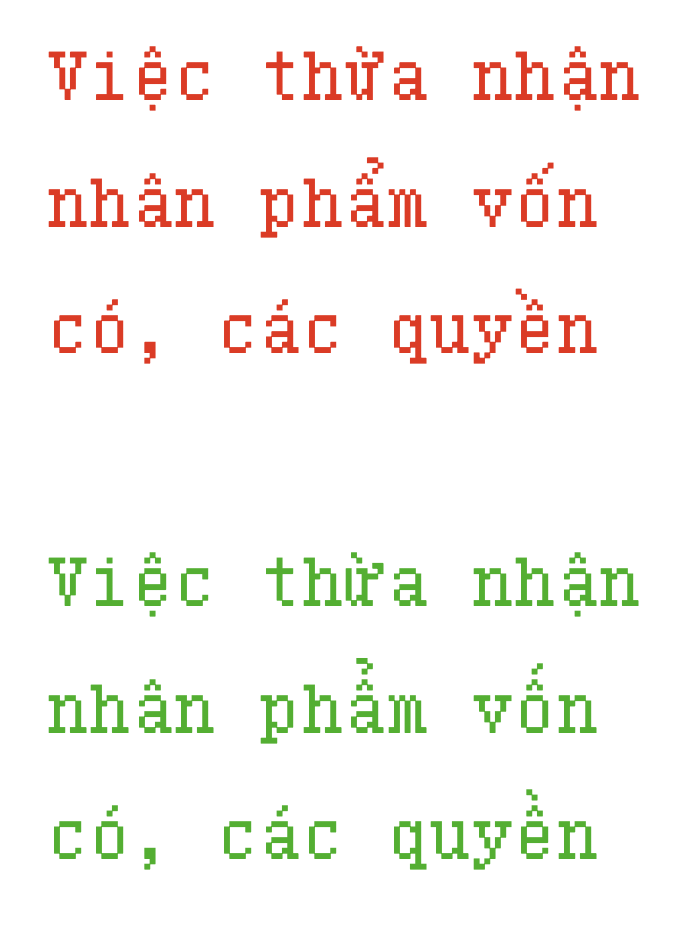
• Unicode 18.0 is WIP. Ranked #1 for most glyphs!!
My goal is to create as much Unicode characters as possible in a small grid. (But not over 65535)
Now 24249 Glyphs
Recent updates
11 Jul 2025:
Added Garay
12 Jul 2025:
Added Medefaidrin, Fixed Adlam
10 Jul 2025:
Improved many Vietnamese diacritics. The positionings of the accents have been changed. They are stacked on the top.
15 Aug 2026
Added unicode 18.0, improved Amenian, also added pre-existing 17.0 glyphs. Finished Sidetic, Beria Erfe and Tolong Siki, also Miscellaneous Symbols Supplement. Added glyphs in Armenian and Latin glyphs.
16 Aug 2026
Redrawn Armenian
The green one is much better
I've also fixed the O-horn and the U-horn to parellel the heights and the serifs
most glyphs monospaced font
Redesign the vulgar fractions 1/2; 1/4; 3/4 so that it is consistent with the other vulgar fractions (in the number forms block) PLEASE.
Can you add Balinese?